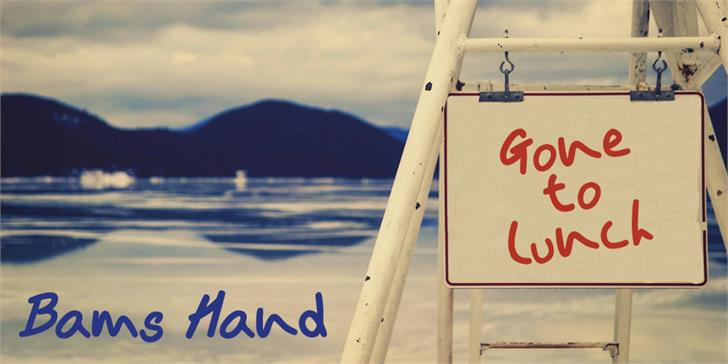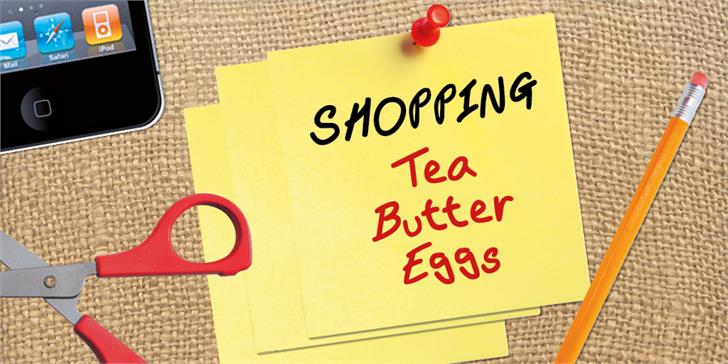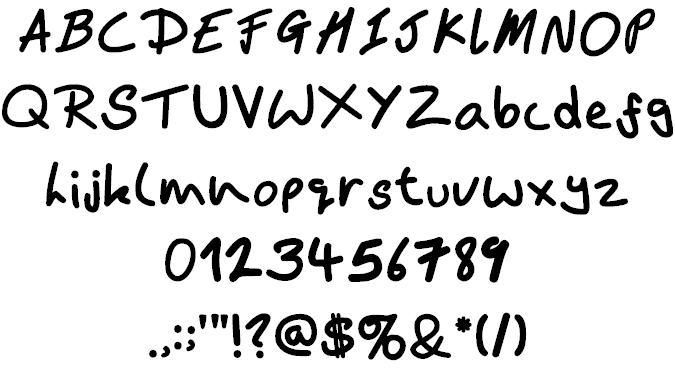
Bam’s Hand Font: A Casual and Personal Touch for Your Designs
Are you tired of using the same old fonts in your designs? Do you want to add a personal touch to your work? Look no further than Bam’s Hand Font, a unique and casual font that is based on the creator’s own handwriting. In this article, we’ll take a closer look at this font, its features, and how it can be used to elevate your designs.
The Story Behind Bam’s Hand Font
Bam’s Hand Font is a font that was created from the founder’s own handwriting. As described, “this ‘casual’ style comes from quick note taking.” This means that the font has a natural and effortless feel to it, making it perfect for designs that require a personal touch. The font is based on the idea of taking notes quickly, which gives it a relaxed and informal vibe.
Features of Bam’s Hand Font
Bam’s Hand Font has several features that make it stand out from other fonts. Some of its key features include:
- Unique and Personal: The font is based on the creator’s own handwriting, making it truly unique and personal.
- Casual and Informal: The font has a relaxed and informal feel to it, making it perfect for designs that require a casual touch.
- Handwritten Style: The font has a natural, handwritten style that gives it a personal and human touch.
- Easy to Read: Despite its casual nature, the font is easy to read and understand, making it perfect for body text and other written content.
Uses of Bam’s Hand Font
Bam’s Hand Font can be used in a variety of designs, including:
- Branding and Packaging: The font can be used to create unique and eye-catching branding and packaging designs.
- Stationery and Invitations: The font is perfect for creating personal and informal stationery and invitations.
- Web Design: The font can be used to add a personal touch to web designs, including blog posts and social media graphics.
- Crafting and DIY Projects: The font is perfect for crafters and DIY enthusiasts who want to add a personal touch to their projects.
Tips for Using Bam’s Hand Font
Here are some tips for using Bam’s Hand Font in your designs:
- Use it Sparingly: Because the font is casual and informal, it’s best to use it sparingly to avoid overwhelming the design.
- Pair it with Other Fonts: The font can be paired with other fonts to create a unique and interesting contrast.
- Experiment with Colors: The font can be used with a variety of colors to create a unique and eye-catching design.
Bam’s Hand Font is a unique and personal font that can add a casual touch to your designs. With its natural, handwritten style and easy-to-read format, it’s perfect for a variety of design projects, from branding and packaging to stationery and web design. Whether you’re a designer, crafter, or DIY enthusiast, Bam’s Hand Font is a great choice for adding a personal touch to your work.